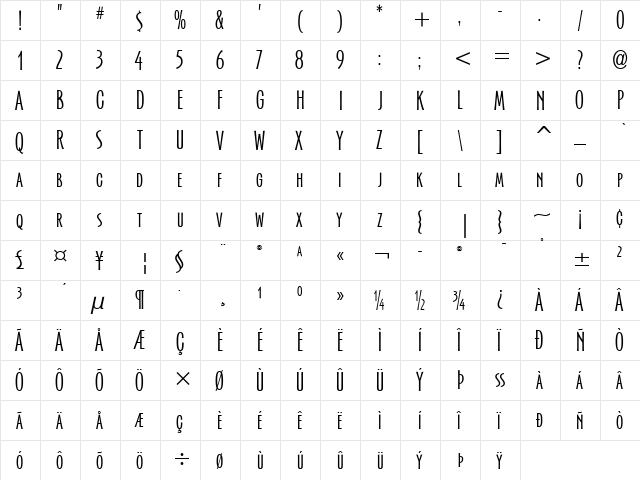
Serengetti ITC Regular
Design Context for Serengetti ITC Typeface
Serengetti ITC offers clean, dependable letterforms without strong stylistic allegiance, making it a practical choice for designers who need flexibility.
Pro Tip: Use Serengetti ITC in both headline and body roles to test its range before committing to a single application.